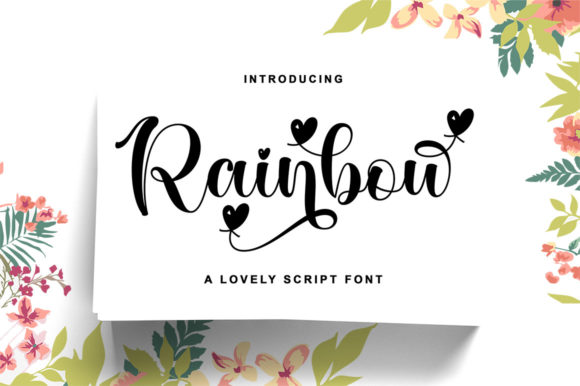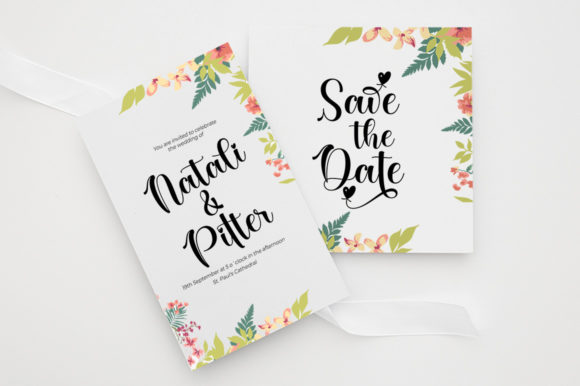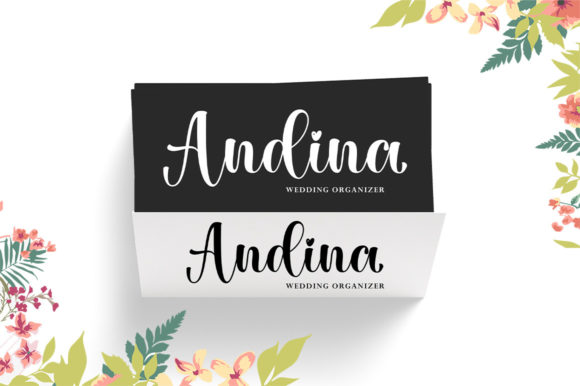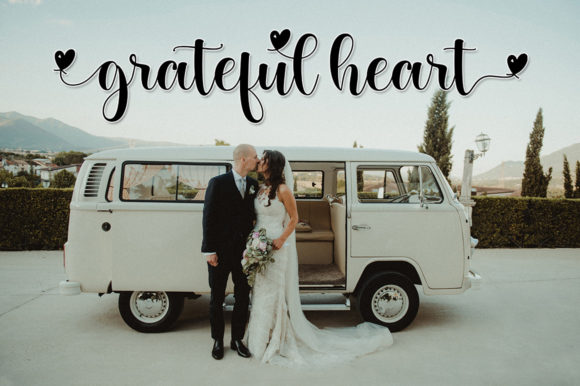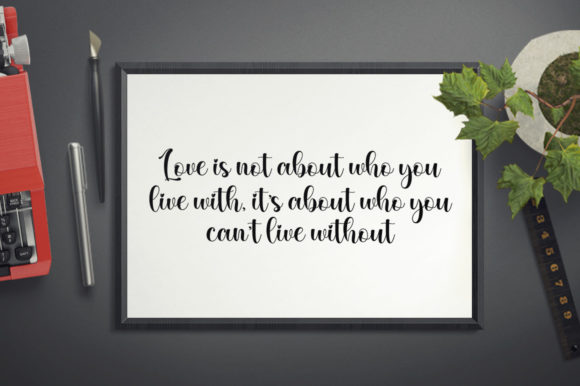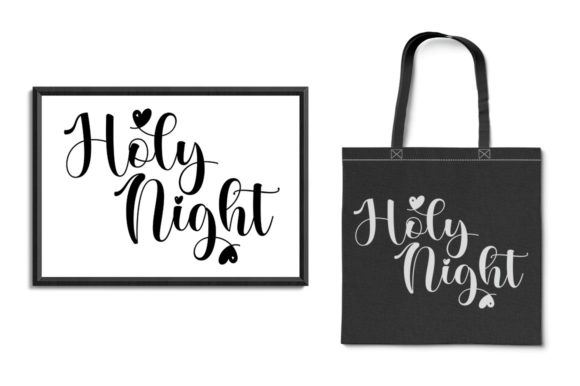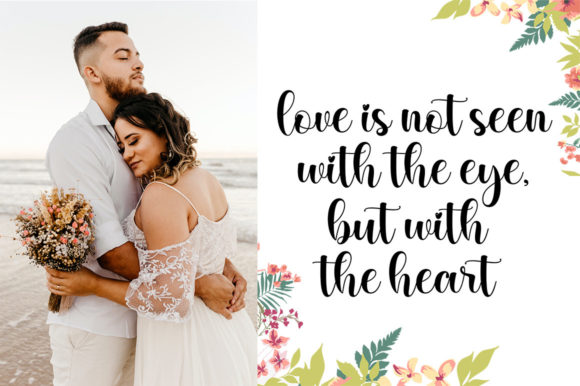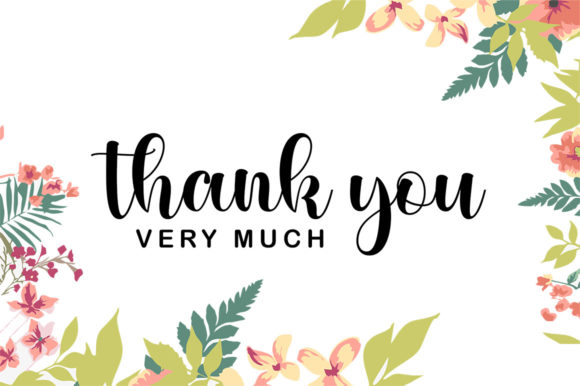
Rainbow Font
About Rainbow Font
Rainbow is a soft, smooth and romantic script font. It will add a luxury spark to any design project that you wish to create! This font is PUA encoded which means you can access all of the amazing glyphs and ligatures with ease!